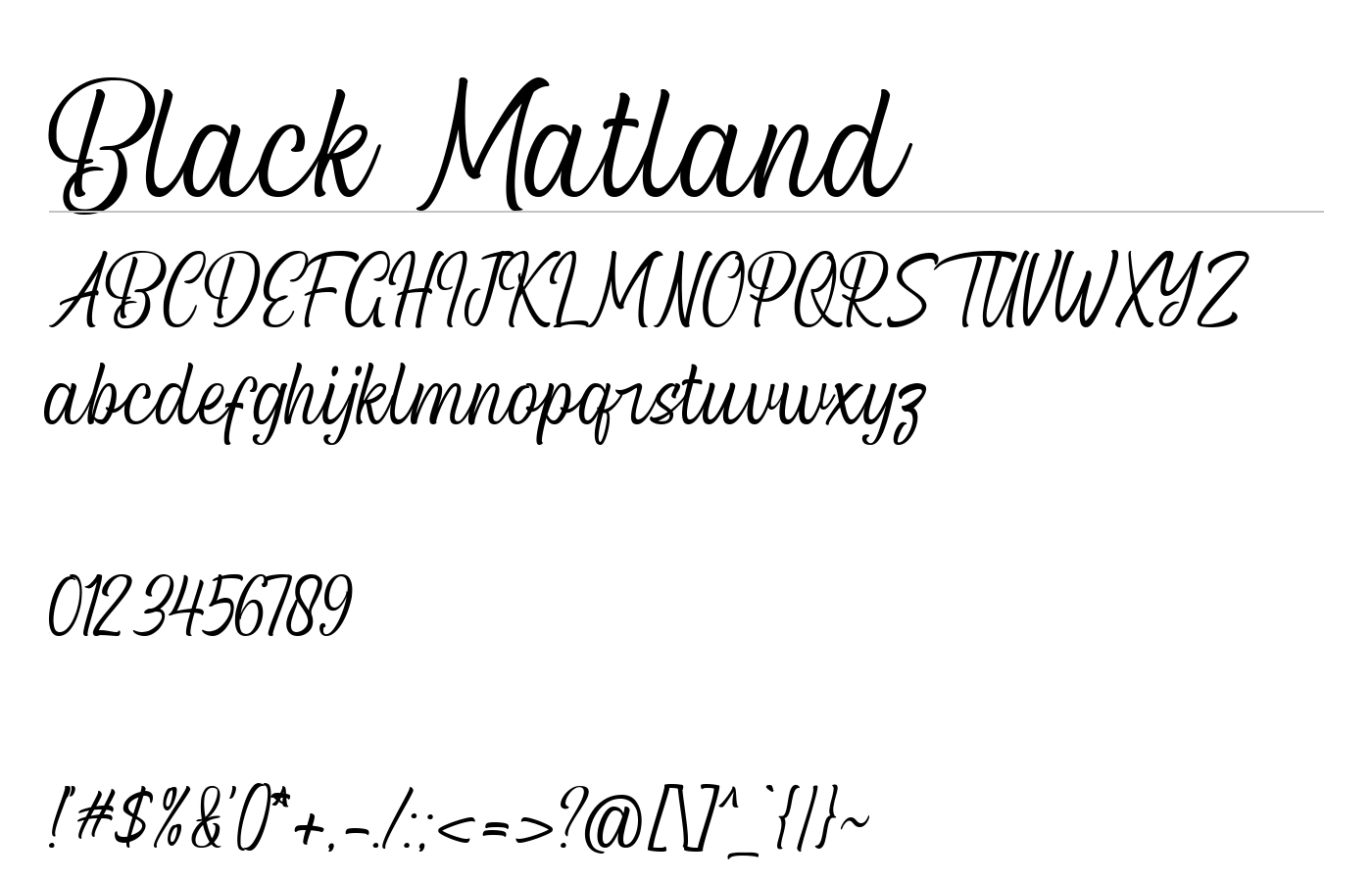
Black Matland is an elegant script font characterized by its smooth, flowing strokes and slender weight, giving it a refined and graceful appearance. Its handwritten style and high contrast between thick and thin lines make it ideal for sophisticated branding, invitations, and editorial designs that require a touch of classic charm with a modern twist. This font works beautifully for projects needing a personal yet polished aesthetic that conveys warmth and elegance.
Black Matland Font
About Black Matland Font